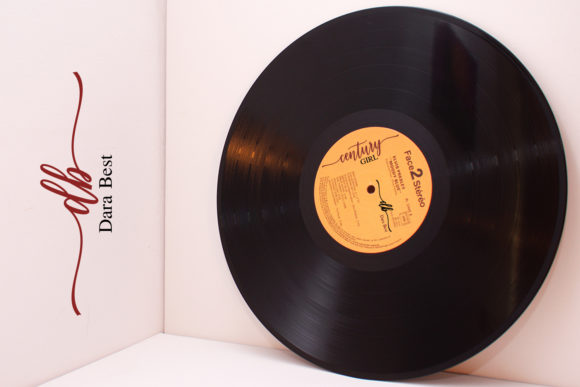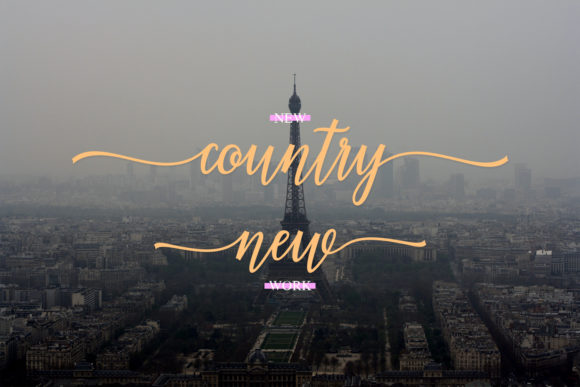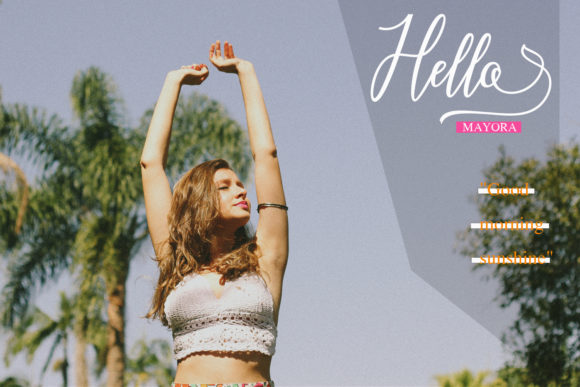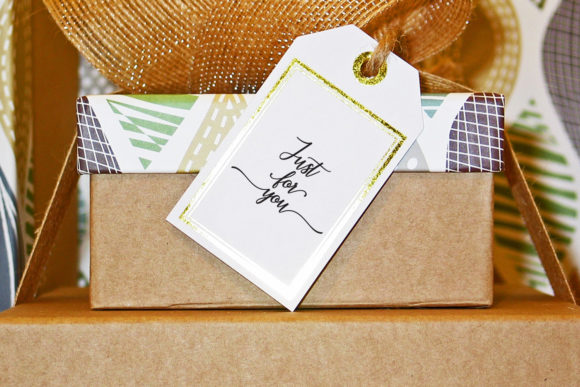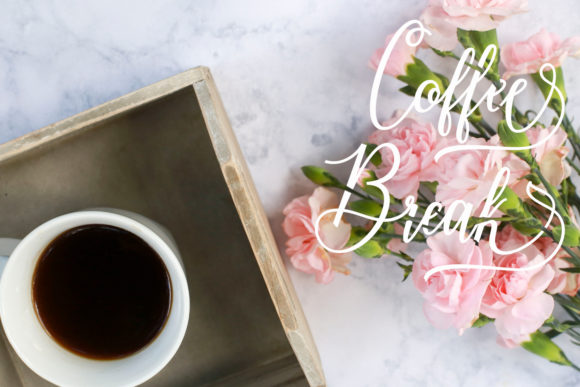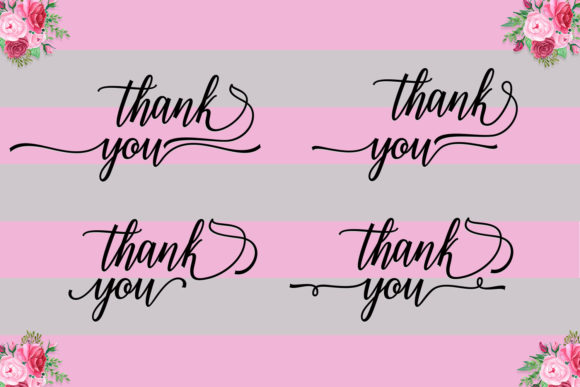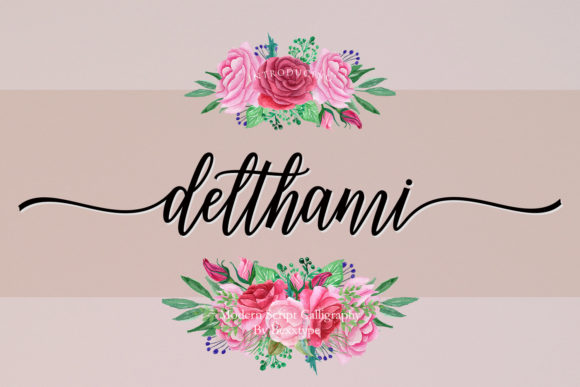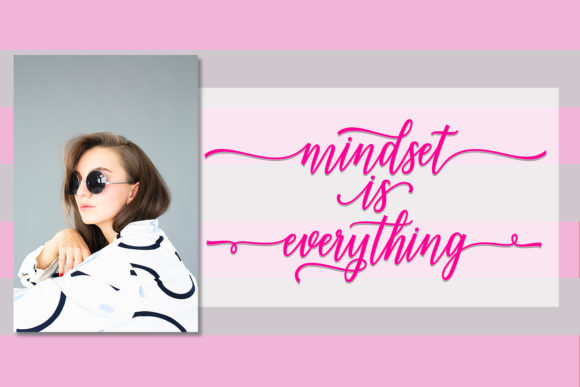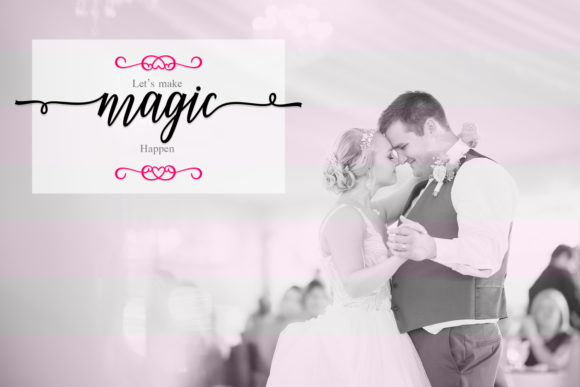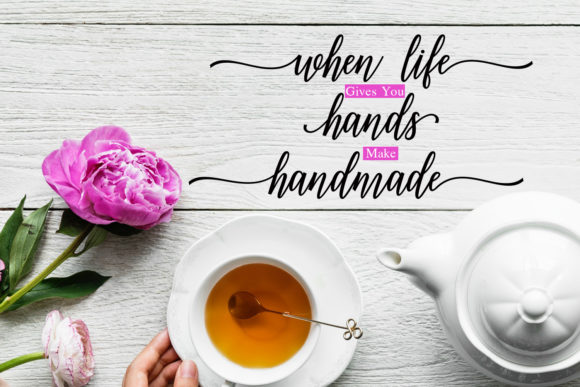
Delthami Script Font
About Delthami Script Font
Delthami is a fresh and modern handwritten font with incredible swashes. Use it to turn any crafting project into a true eye-catcher!